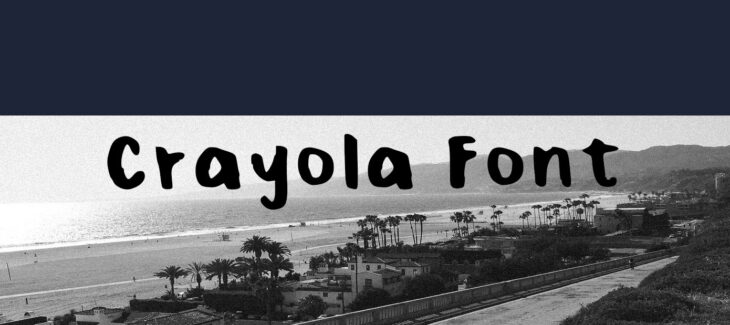
Crayola Font is a brush font inspired by the Crayola preset found in Photoshop and Gimp. It is a great brush that can bring life to an otherwise bland and lifeless graphic design and its unique style makes it much more appealing than the standard fluid, modern design one would expect from a brush font.
While It can be used with Photoshop, I find that it works much better when used with Adobe Illustrator. The reason for this is that you get complete control over how big or small you want the text and in what color you want it to be. Because this typeface only comes in lowercase and with no punctuation or numbers.
Who Used Crayola Font?
It can be used in many different projects that have to do with graphic design, but it works especially well for vintage designs. Crayola Font is not just limited to text either. One can use this font for both headings and sub-headings in all kinds of projects. For example, one could make the heading in the form of a title and the subheading be more of an explanation. You can check that brush king font that makes a very lovely pair with this style.
It only comes in lowercase and with no punctuation so this means that it is best used when placed next to words or sentences whose letters are not all the same case. This will create a much more balanced look than if each word was in the same case.
It is a brush font inspired by the Crayola preset found in Photoshop and Gimp. It is a great brush that can bring life to an otherwise bland and lifeless graphic design and its unique style makes it much more appealing than the standard fluid.
Crayola Font Family Appearance
| Name | Crayola Font |
| Designer | Robert Slimbach |
| Style | Display |
Is Crayola a good font?
Yes, It is a great font because it can be used in many different projects and its uniqueness makes it stand out.
What is Crayola Font used for?
It can be used in many different projects that have to do with graphic design, but it works especially well for vintage designs.
What is Crayola Font similar to?
It is similar to a comic book font because it has a unique style and it will make the reader want to read more.